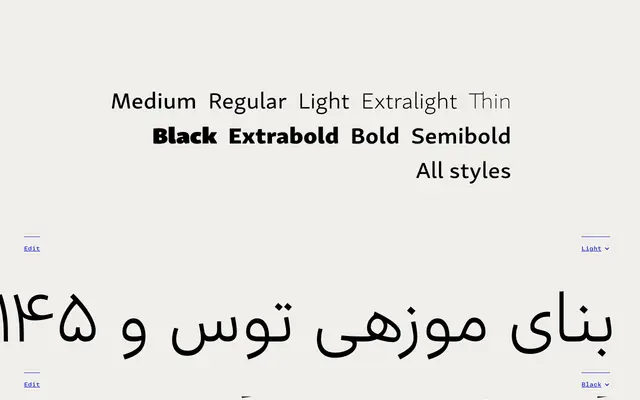
Marlik
Rosetta · Borna Izadpanah · 2018
A reimagining of the simplified Arabic genre by Borna Izadpanah, restoring proper calligraphic proportions while retaining the streamlined modernist aesthetic that made the style popular.
Simplified Arabic arose from hot-metal constraints, trading calligraphic nuance for economy, but the compromises it produced — stiff baselines, illegible letter combinations and awkward joins — were never resolved. Izadpanah, working with art director Fiona Ross, addresses each of these failings directly, returning conventional Arabic proportions to a genre that had abandoned them. Nine weights from Thin to Black, available as a variable font, make the family suitable for everything from newspaper text to poster headlines.
Marlik belongs to the simplified Arabic genre, a style developed for hot-metal typesetting that strips back contextual letterforms and ligatures in favour of a pared-down modernist aesthetic. The Latin component is drawn from Skolar Sans, a humanist sans-serif.